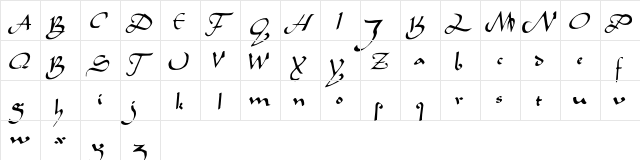
Caliph Regular
Design Context for Caliph Typeface
Caliph is a composed and adaptable typeface that performs quietly and consistently across a wide range of design contexts.